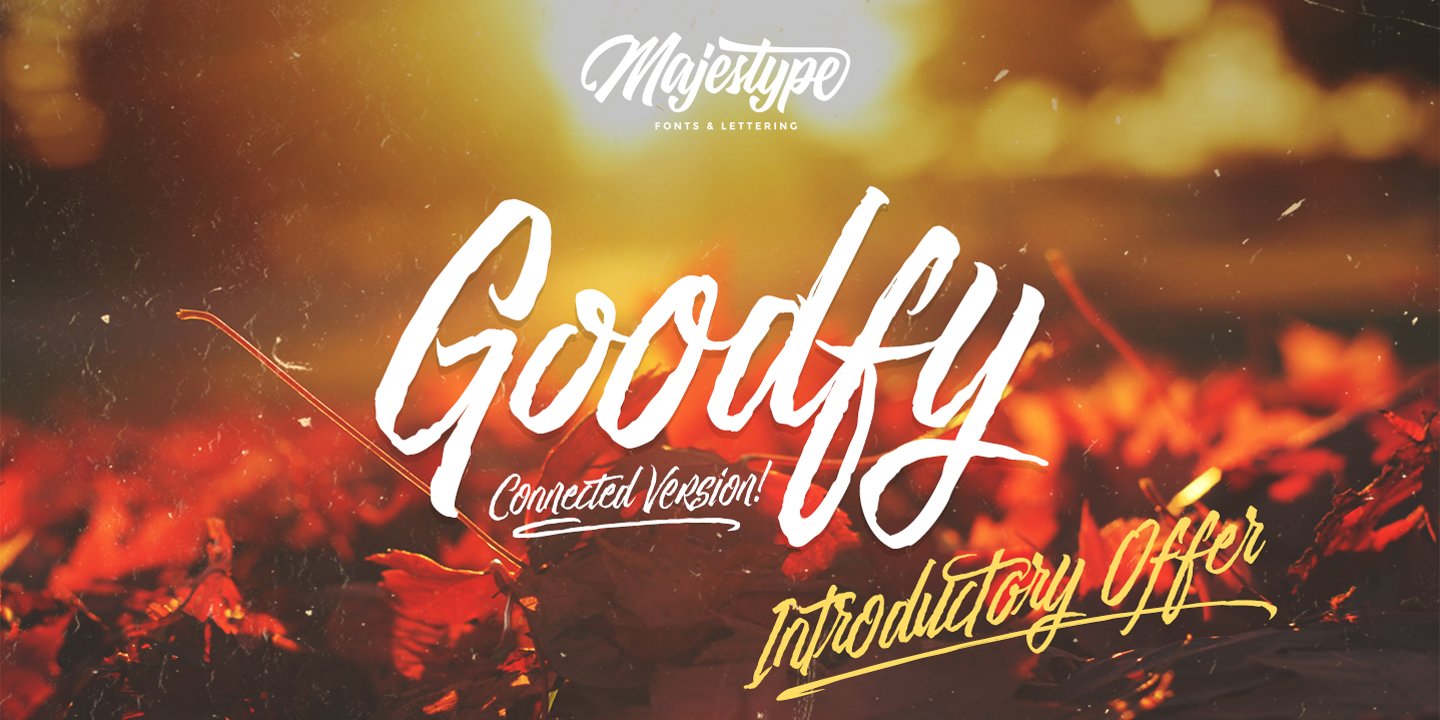
Goodfy Font Free Download – Playful Handwritten Brush Script with Personality
Add a touch of casual creativity to your designs with the Goodfy Font Free Download! This lively brush script features authentic hand-painted strokes with energetic flow, perfect for adding organic charm to branding, social media, and creative projects.
Why Choose Goodfy Font?
Natural Brush Texture – Visible ink variations and pressure effects
Dynamic Baseline Movement – True-to-life handwritten rhythm
Stylistic Alternates – Multiple versions of key letters for custom looks
Coffee shop branding
Handmade product packaging
Social media quotes
Creative blog headers
Personal stationery
Key Features
Uppercase & Lowercase Letters – Complete character set
Numbers & Punctuation – Ready for any design need
Design Tips
Using warm earth tones for organic feel
Pairing with rustic textures
Combining with simple sans-serifs
Adding subtle shadow effects
Designer Note: Best at 24pt+ sizes to showcase beautiful brush details.